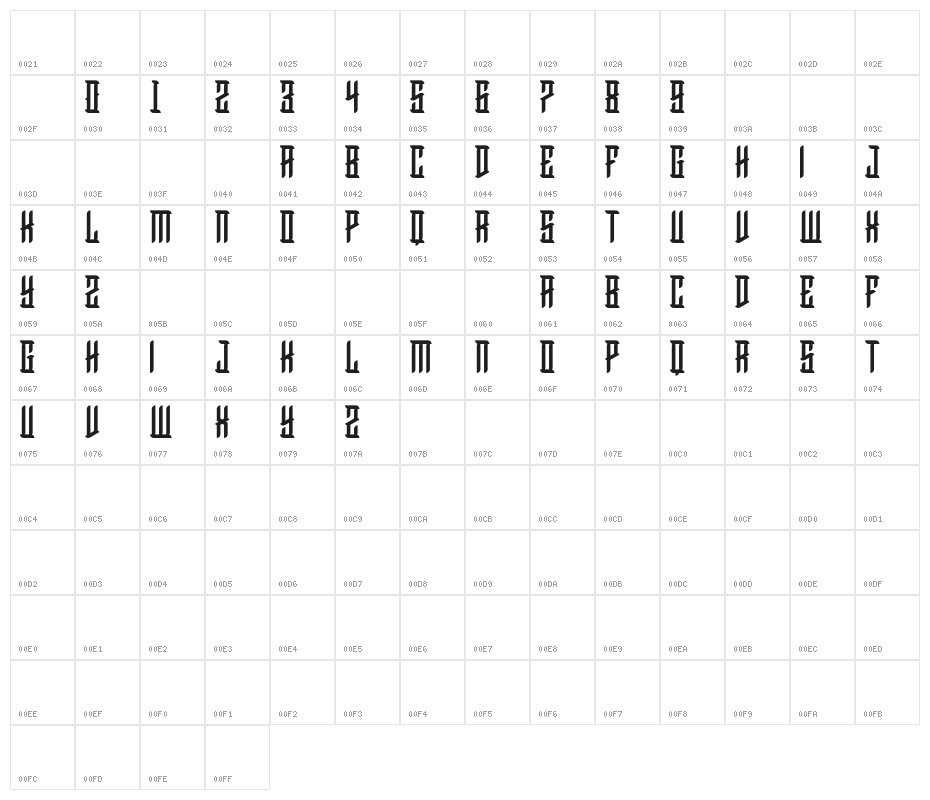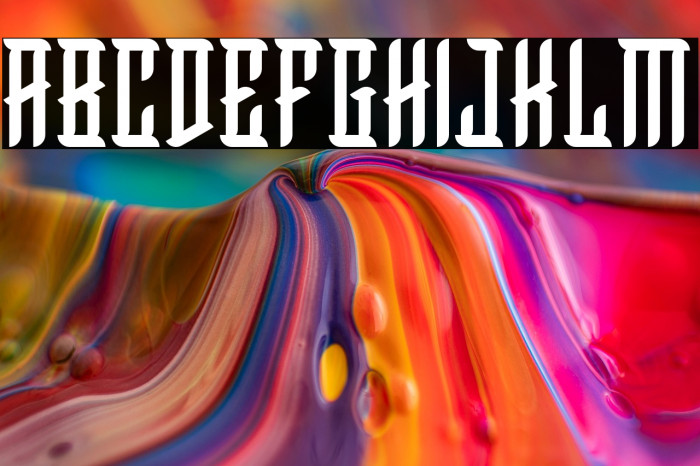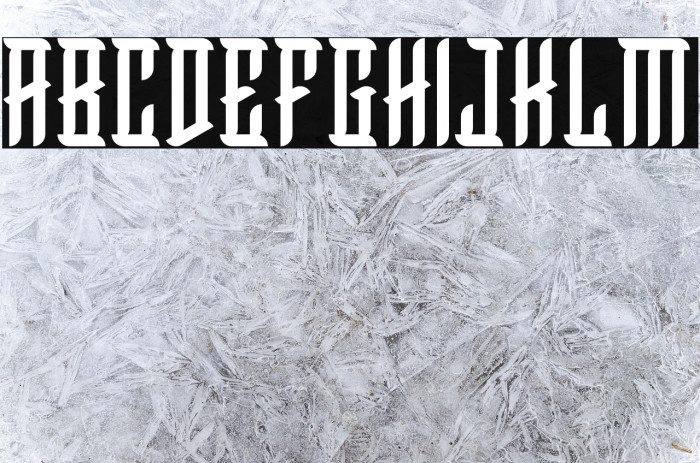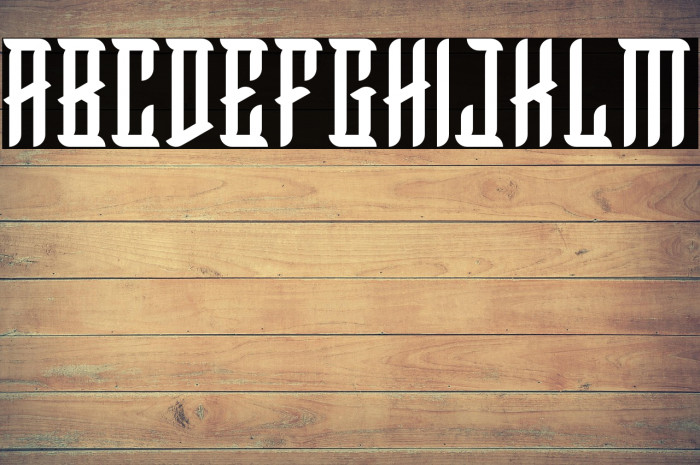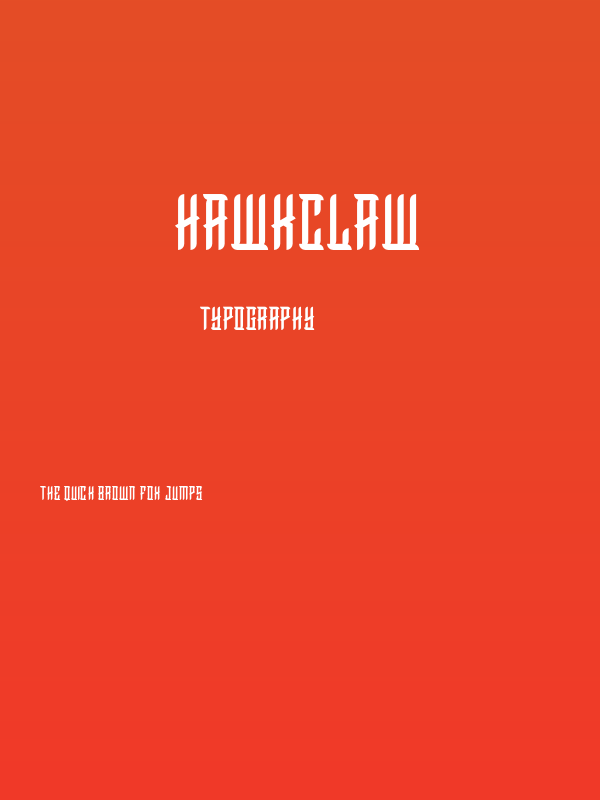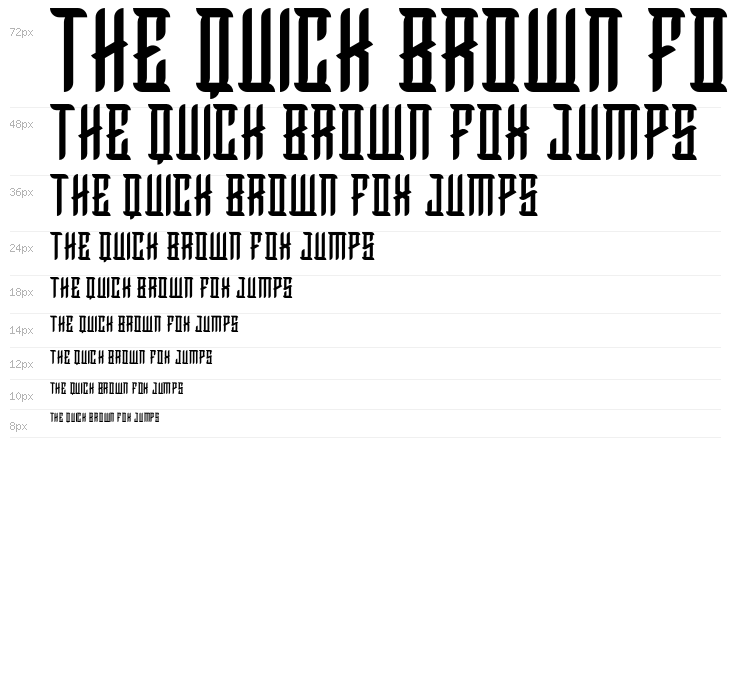
HawkClaw Font
HawkClaw Description
This font features a bold and striking design with a gothic influence, characterized by sharp, angular lines and a strong vertical emphasis. The uppercase letters exhibit a uniform height with distinct serifs that add a touch of elegance and authority. The lowercase letters maintain the same angular style, ensuring consistency throughout the typeface. Numbers are equally bold and maintain the gothic aesthetic, making them stand out prominently. Special characters are designed to complement the overall style, ensuring they integrate seamlessly with the letters and numbers. This font's unique style makes it ideal for projects that require a dramatic and impactful visual presence.
| Overall Style | Gothic, Dramatic |
| Proposed Projects | Ideal for branding, posters, album covers, and any project requiring a dramatic and impactful visual presence. |